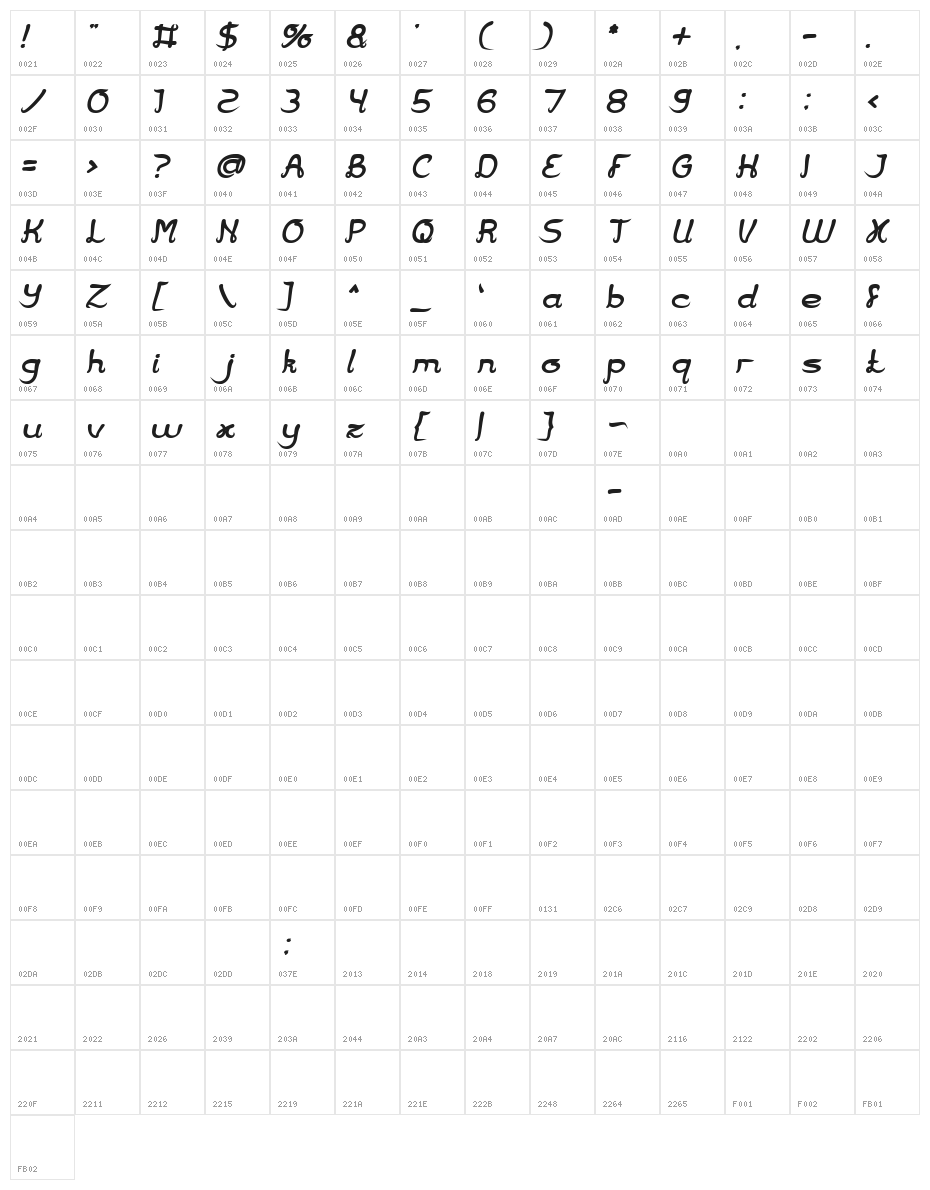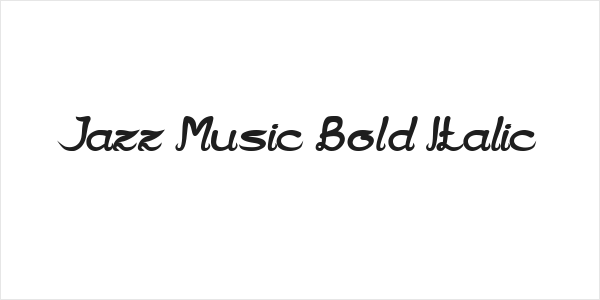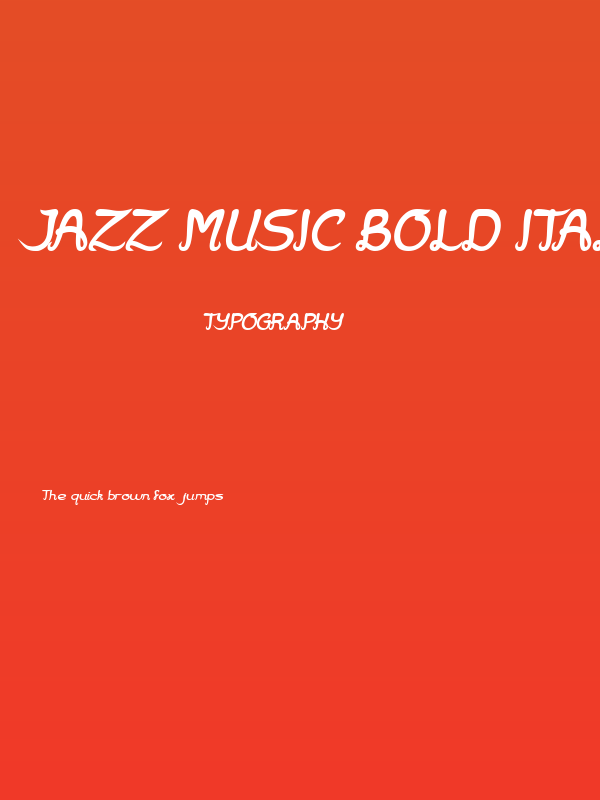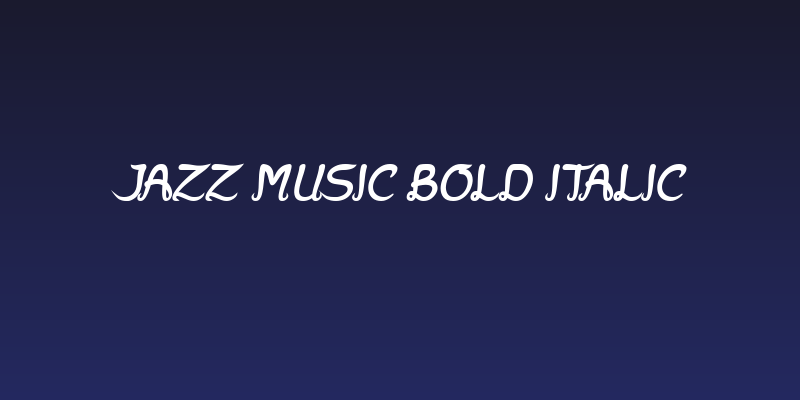
Jazz Music Bold Italic Font
Jazz Music Bold Italic Description
This font exudes a lively and dynamic character, with a bold and italicized style that captures attention. The letters are crafted with a flowing, cursive-like design, featuring smooth curves and elegant swashes that give it a sense of movement and rhythm. The uppercase letters stand tall with a slight slant, while the lowercase letters maintain a consistent flow, enhancing readability. Numbers and special characters are designed to match the overall aesthetic, ensuring a cohesive look. The font's bold weight and italic style make it ideal for projects that require a touch of flair and sophistication.
| Proposed Projects | Ideal for jazz-themed posters, music album covers, event invitations, and branding projects that seek a stylish and energetic look. |